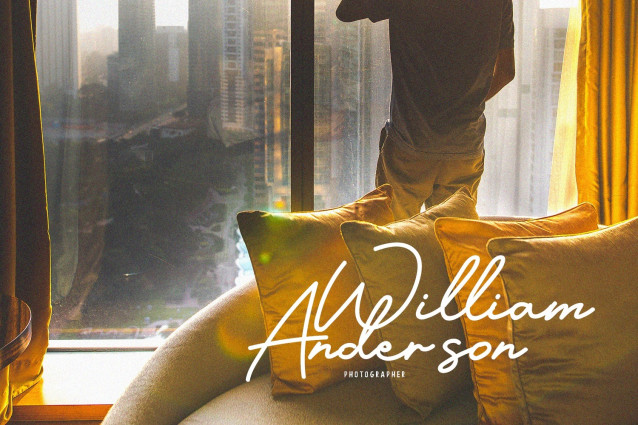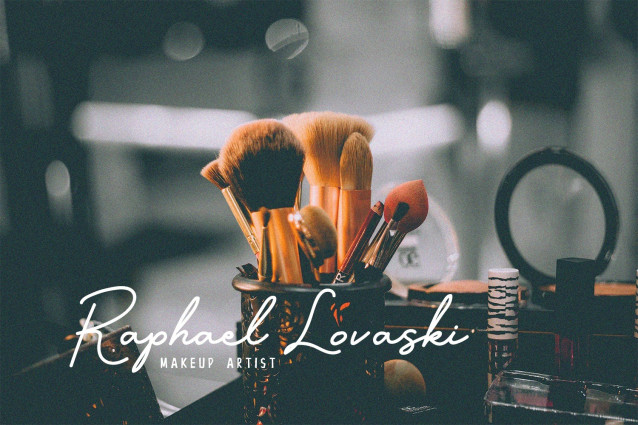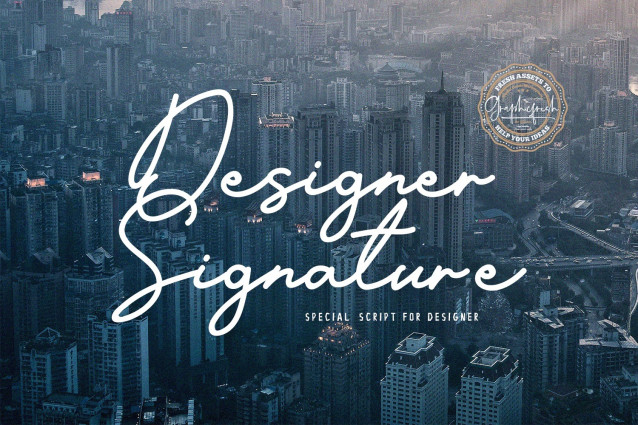
Designer Signature Font
Designer Signature Font – It comes with an elegant style which is perfect to make any design stand out! This font is perfect for branding, wedding invites, magazines, mugs, business cards, quotes, posters, and more.